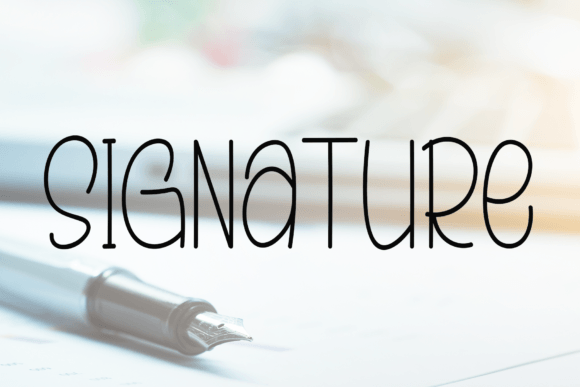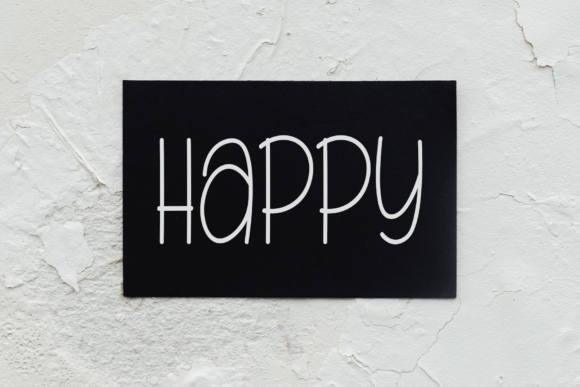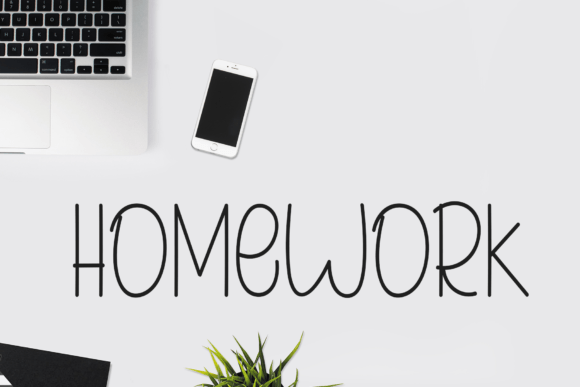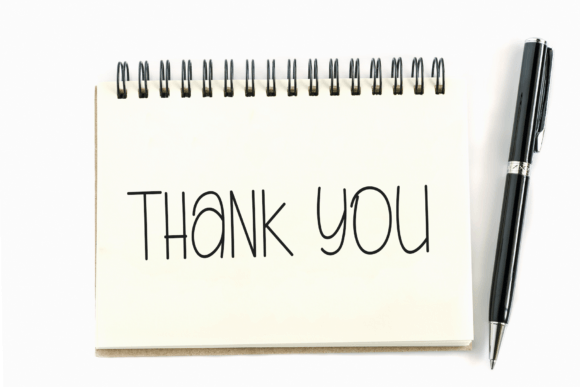
About Writing Minimalist
Writing Minimalist is a lovely and sweet handwritten font. This gentle font will look gorgeous on a variety of design ideas. It will add a joyful and romantic touch to each of your projects!